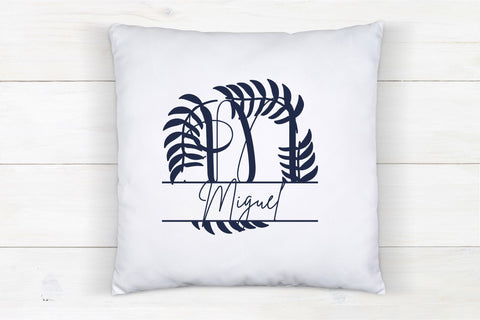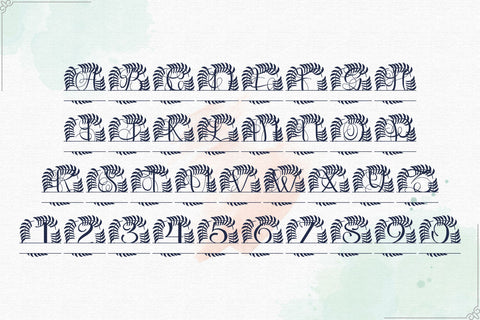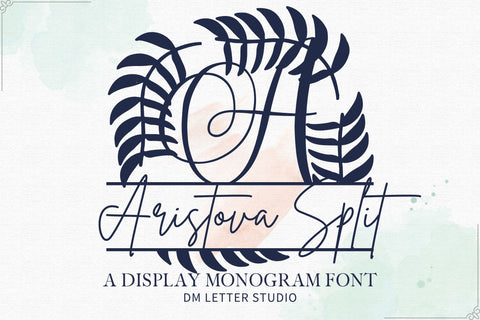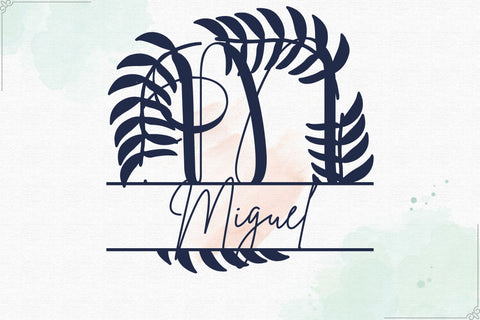
Aristova Split Monogram – Elegant Serif Split Monogram Font
Aristova Split Monogram is a refined serif font designed with elegance and customization in mind. Each uppercase letter features graceful detailing and a clean horizontal split, making it easy to add names, dates, or custom messages within the design. With its polished look and versatile style, Aristova Split Monogram is perfect for weddings, luxury branding, boutique logos, packaging, and personalized crafts.
This font allows you to create monograms that feel both timeless and modern. The serif foundation keeps your text structured and professional, while the split design provides flexibility for personalization. Whether you are designing wedding invitations, gift tags, event signage, or Cricut/Silhouette projects, Aristova Split Monogram helps you achieve a balance of beauty and function.
By combining elegant serif styling with customizable split monogram functionality, Aristova Split Monogram makes every project feel refined and personal. Use it to create keepsakes, high-end branding, or digital products that stand out with sophistication.
Split Monogram Design: Horizontal gap for inserting names, initials, or custom text.
Elegant Serif Base: Classic uppercase letters enhanced with decorative detailing.
Perfect for Personalized Projects: Great for weddings, branding, signage, packaging, and crafts.
Complete Character Set: A–Z uppercase, numerals, punctuation, and multilingual support.